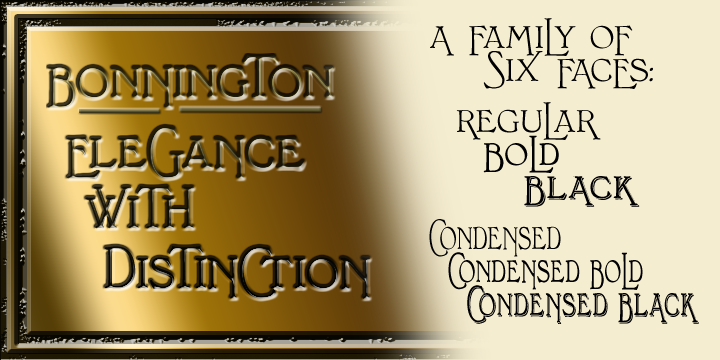
Bonnington Black is a historical and display serif font family. This typeface has six styles and was published by Greater Albion Typefounders.
Bonnington is a Roman display face full of the spirit of the 1920s, developing further the ideas in our Bonning family. Three weights are offered, including a shadowed black form, in a choice of regular and condensed widths. It’s the ideal face for signage with a period feel, as well as posters and headings. Combine Bonnington and Bonning together using Bonnington for eye-catching headings and Bonning for other text.